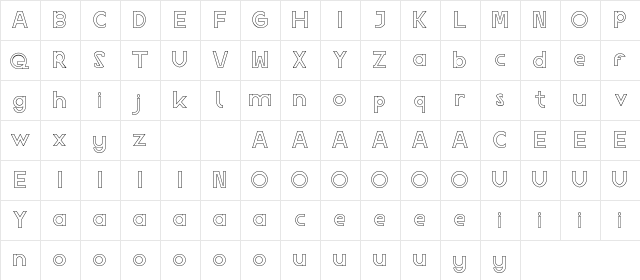
Social Trend Demo Outline Regular
| Foundry | Edric Studio |
| Designer | Renata & Sarah Suci P |
Design Context for Social Trend Demo Outline Typeface
Social Trend Demo Outline is built around its visual character rather than neutral utility — its distinctive forms are designed to make an impression at display sizes.
Font Pairing: Pair with a clean neutral sans-serif for body copy to let Social Trend Demo Outline's character lead without overwhelming the composition.
Pro Tip: Use Social Trend Demo Outline exclusively at display sizes — it was designed to be seen, not read at length. Let a neutral companion handle body copy.